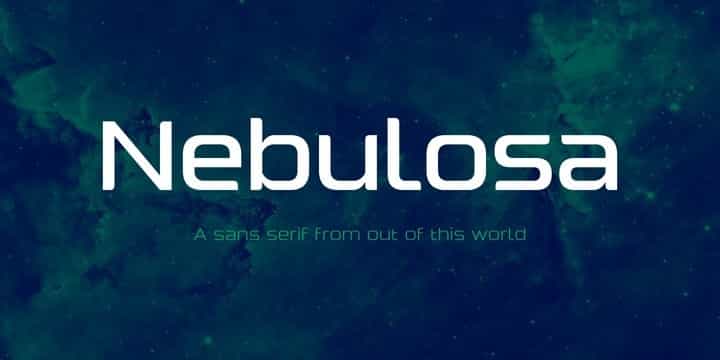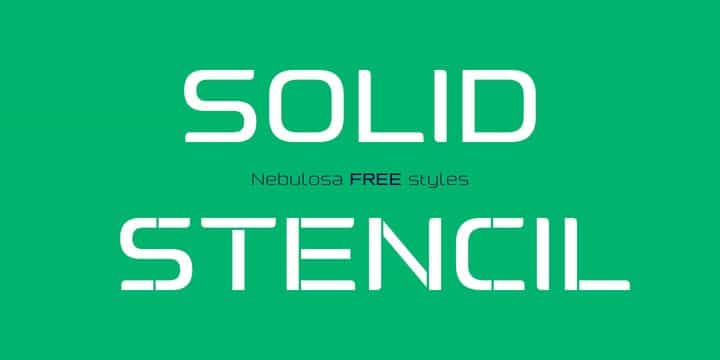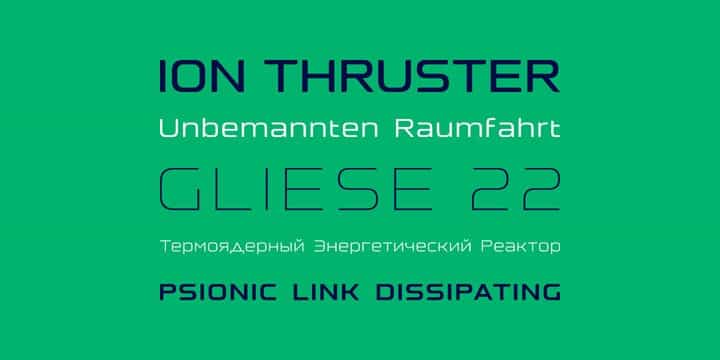
Nebulosa Font is a fusion of the mood and rhythm of art deco with modern, clean letterforms. Nebulosa has a character while at the same time being useful because of its restrained style and modernized construction. The variation of the letter width makes a nice rhythm. It is great for headlines, logos and large type.